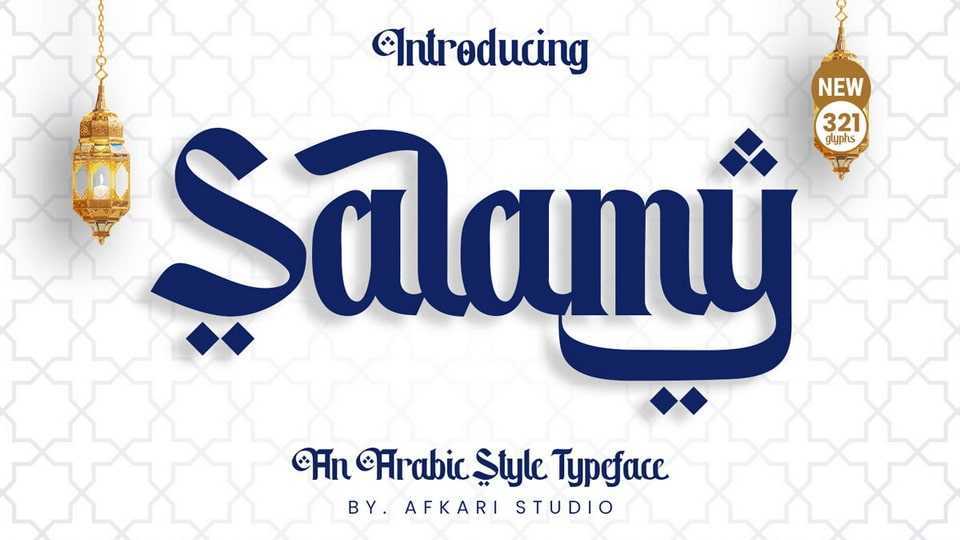
Download Salamy font, a captivating typeface that embodies the timeless beauty of Arabic calligraphy, now reimagined for modern design projects.
Designer: Afkari Studio